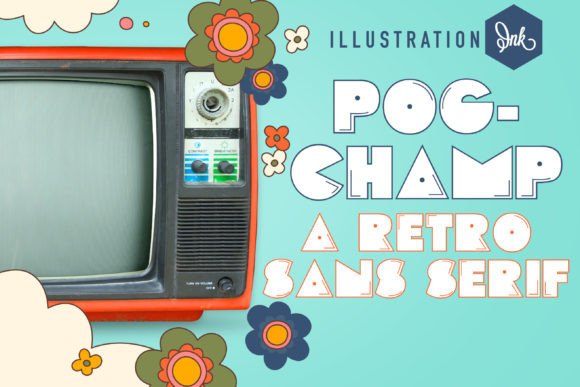
Pogchamp Font: The Ultimate Retro Display Font for Creative Projects
In the world of typography, fonts play a crucial role in conveying the tone and personality of a brand or creative project. With the vast array of fonts available, it can be overwhelming to choose the right one that captures the essence of your vision. However, if you’re looking for a font that combines modernity with a nostalgic retro feel, look no further than the Pogchamp Font. In this article, we’ll dive into the world of Pogchamp, exploring its unique features, and how it can elevate your creative projects into authentic pieces of art.
What is Pogchamp Font?
Pogchamp Font is a modern, video-game-like display font that embodies the spirit of old-school retro aesthetics. Its unique design combines sleek, contemporary lines with a nostalgic feel that’s reminiscent of classic video games. This font is perfect for creative projects that require a bold, eye-catching display font that can instantly capture the audience’s attention.
Key Features of Pogchamp Font
• Retro Aesthetic: Pogchamp Font boasts an unmistakable retro feel that’s perfect for projects that require a nostalgic touch.
• Modern Design: Despite its retro inspiration, Pogchamp Font features a sleek, modern design that’s perfect for contemporary creative projects.
• Video-Game-Like: The font’s video-game-like style makes it ideal for gaming-related projects, esports branding, and other applications where a bold, dynamic font is required.
• Highly Versatile: Pogchamp Font can be used across various platforms, including print, digital, and web applications.
Creative Ways to Use Pogchamp Font
Pogchamp Font is an incredibly versatile font that can be used in a wide range of creative projects. Here are some ideas to get you started:
• Game Development: Pogchamp Font is perfect for game titles, logos, and UI elements that require a bold, retro aesthetic.
• Esports Branding: The font’s video-game-like style makes it an excellent choice for esports branding, team logos, and tournament materials.
• Posters and Flyers: Pogchamp Font can add a touch of nostalgia and playfulness to your posters and flyers, making them stand out from the crowd.
• Social Media Graphics: Use Pogchamp Font to create eye-catching social media graphics, memes, and animations that are sure to grab attention.
• Web Design: Pogchamp Font can be used as a display font for website headers, titles, and other design elements that require a bold, modern look.
Tips for Using Pogchamp Font Effectively
To get the most out of Pogchamp Font, here are some tips to keep in mind:
• Use it Sparingly: Pogchamp Font is a bold, attention-grabbing font that’s best used sparingly. Use it for headings, titles, and other design elements that require a strong impact.
• Pair it with Neutral Fonts: Pair Pogchamp Font with neutral fonts, such as sans-serif or serif fonts, to create a balanced and harmonious design.
• Experiment with Colors: Pogchamp Font looks great in bold, bright colors. Experiment with different color schemes to find the perfect combination for your project.
• Pay Attention to Legibility: While Pogchamp Font is designed to be bold and attention-grabbing, make sure it’s still legible, especially at smaller font sizes.
Benefits of Using Pogchamp Font
So, why choose Pogchamp Font for your creative projects? Here are some benefits to consider:
• Instant Recognition: Pogchamp Font is a unique and distinctive font that’s sure to grab attention and leave a lasting impression.
• Flexibility: Pogchamp Font can be used across various platforms and applications, making it a versatile addition to your font library.
• Time-Saving: With Pogchamp Font, you can save time and effort in designing and developing your creative projects. Its bold, attention-grabbing design eliminates the need for extensive design work.
• Professional Look: Pogchamp Font gives your creative projects a professional, polished look that’s sure to impress your audience.
In conclusion, Pogchamp Font is a modern, video-game-like display font with an old-school retro feel that’s perfect for creative projects that require a bold, eye-catching design. With its unique features, versatility, and benefits, Pogchamp Font is an excellent addition to any font library. Whether you’re a designer, developer, or simply a creative enthusiast, Pogchamp Font is sure to transform your ideas into authentic pieces of art. So, what are you waiting for? Download Pogchamp Font today and take your creative projects to the next level!